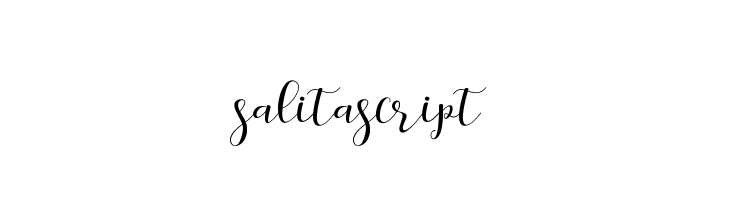
An elegant script font with flowing, ornate letterforms and intricate swashes.
An elegant, flowing script font with ornate, cursive letterforms.
A flowing, cursive script font with an elegant, handwritten style.
A flowing, cursive font with elegant loops and a handwritten style.
A cursive, handwritten-style font with elegant loops and a sophisticated appearance.
An elegant script font with decorative swirls and flourishes.
A modern, cursive font with a handwritten style.